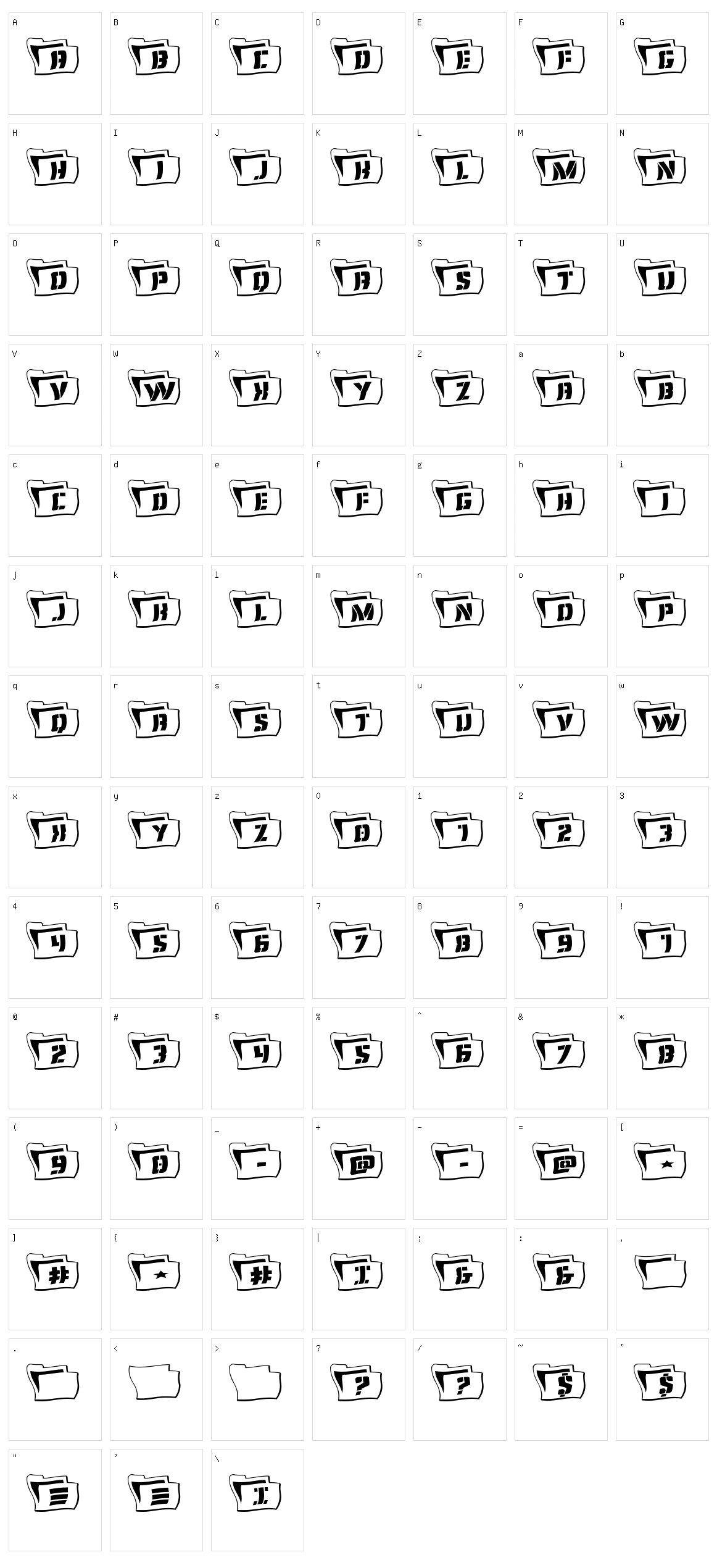
The free font Eyes Only is carefully designed by Iconian Fonts, showcasing a thoughtful balance of creativity and usability and falls under the Stencil font style. When you download the ZIP file, it contains only 268 KB of font files, making it lightweight and quick to download. Please review the license details below to understand permitted usage and distribution rights. If license information is not available, we recommend using this font for personal projects only or contacting the author directly for commercial usage permissions.
This font comes with the following 30 versions: Regular, Condensed, Semi-Condensed, Italic, Condensed Italic, Semi-Condensed Italic, Leftalic, Condensed Leftalic, Semi-Condensed Leftalic, 3D, Rotated, Rotalic, Wavy, Wavy 2, Wavy 3, Outline, Outline Condensed, Outline Semi-Condensed, Outline Italic, Outline Condensed Italic, Outline Semi-Condensed Italic, Outline Leftalic, Outline Condensed Leftalic, Outline Semi-Condensed Leftalic, Outline 3D, Outline Rotated, Rotalic, Outline Wavy, Outline Wavy 2 and Outline Wavy 3.